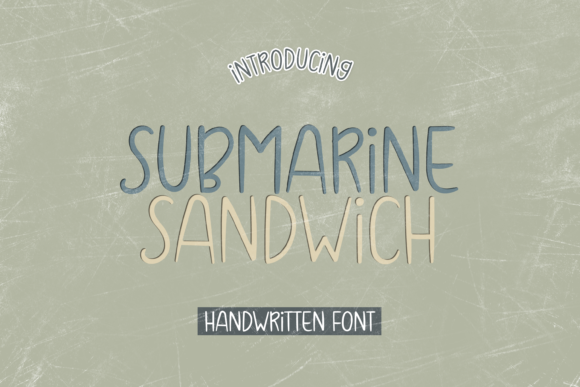
Voyage into the Depths of Creativity with Submarine Sandwich - The Spikey Script Font!
Introducing Submarine Sandwich, a skinny, playful handwritten font that will add an unexpected spark to your projects. Dive into the depths of creativity and let your designs stand out with this unique font.
Unlock the Power of Expression with Submarine Sandwich
Submarine Sandwich is more than just a font; it's an artistic tool that unlocks the power of expression. Its captivating spiky feel dances across your designs, leaving an unforgettable impression. Unleash your imagination and create captivating visuals that speak volumes.
Craft Unique Designs that Shine
Submarine Sandwich is perfect for adding a touch of fun and personality to logos, branding, social media graphics, and posters. Its playful nature brings life to invitations, wedding stationery, and product packaging. Transform ordinary designs into extraordinary works of art with a few clicks.
Submarine Sandwich - A Font for Every Occasion
Whether you're a seasoned designer or just starting, Submarine Sandwich is your perfect companion. Its versatility shines in various applications, from digital platforms to physical products. Create stunning visuals that captivate audiences across the board.
Make a Statement with Submarine Sandwich
Don't settle for ordinary fonts. Choose Submarine Sandwich and make a statement with your designs. Its distinctive character adds an irresistible charm that sets your work apart from the crowd. Stand out and leave a lasting impression.